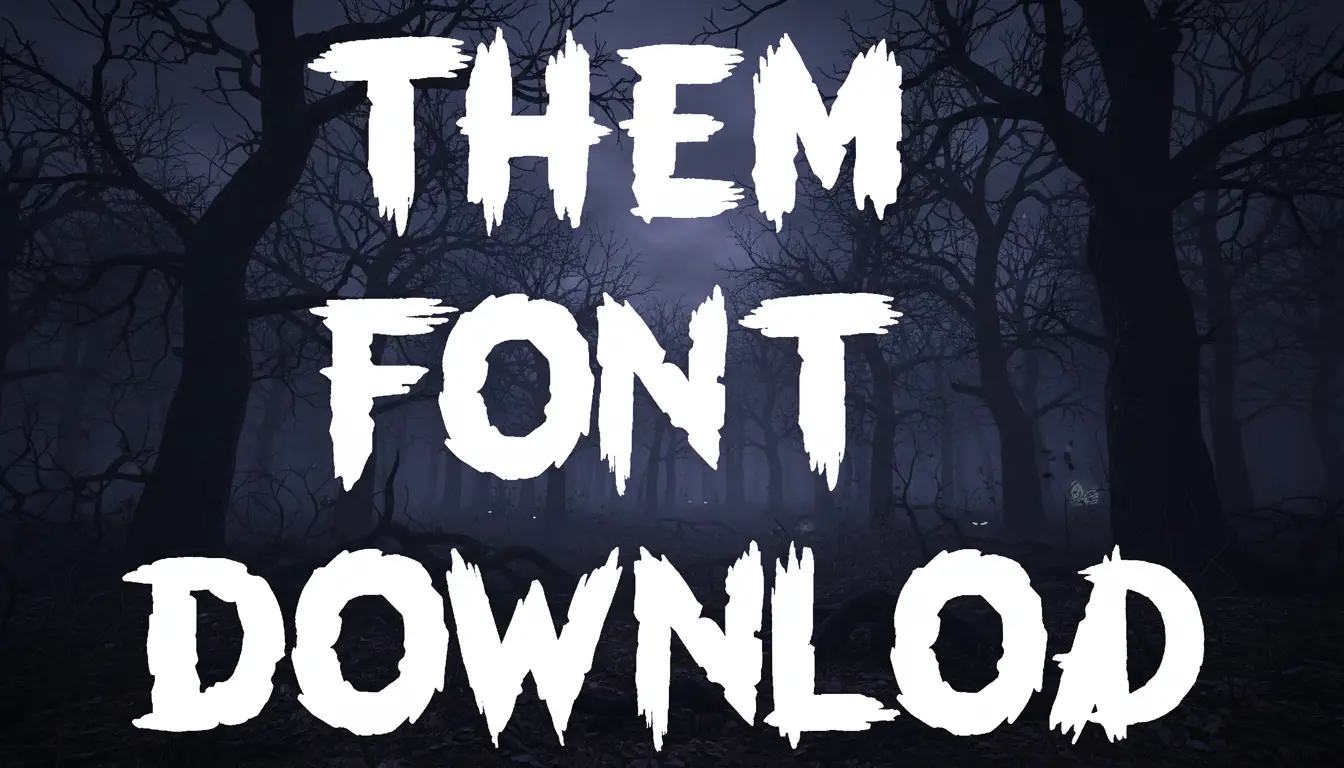
Them Font
Them
Them is a fancy font designed by Imagex. Bold and full of character, it's built to stand out rather than blend in. You can download it for free and test it with your own words in the preview above.
- Characters: A–Z, 0–9 and basic punctuation
What You Can Type With Them
Them is an all-caps font: it only has capital letters. Lowercase letters will show up in a different font or as empty boxes, so turn on Caps Lock when you type. All ten numbers are included. Everyday marks like !, ?, # and $ are there too. There are no accented letters like é or ñ, so it's best kept to English text.
Where Them Works Best
Think of Them for posters, logos and eye-catching headlines. Use it for one standout word or headline and let simpler fonts handle the rest.
No. Them has no accented letters such as é, ñ or ü, so it's best for English text.